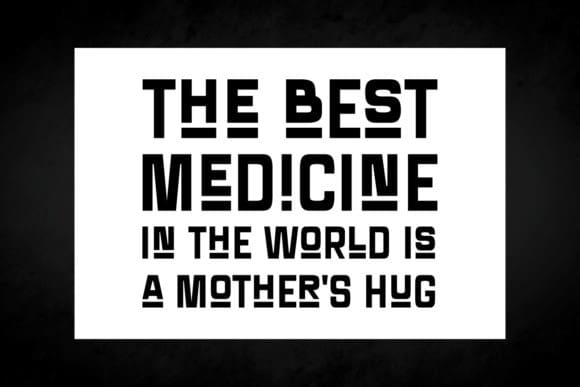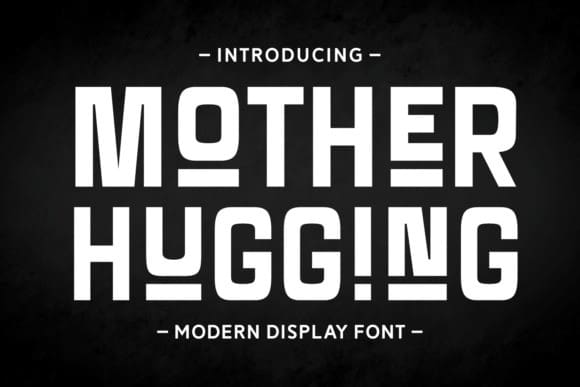
Mother Hugging Font
Mother Hugging Font, a multi-faceted display font. Making your tee designs stand out with its bold typography, it also adds an elegant touch to your book covers and school projects.
Kids will love its smoothly clean look on notes, while its seamless application will elevate your mug or sticker projects. Adorn your products with its sophisticated style. Perfect for Tumblr posts, be it about food or drinks, Mother Hugging is perfect for creating trendy tote bags or aesthetically pleasing scrapbooks.
Whether it’s for branding, greeting cards or logos, this font knows how to make a statement. Bring in the festivity with its irresistible birthday theme and transform any wall art into a masterpiece with its multilingual support feature. Discover the versatility of Mother Hugging, and make your designs come to life.